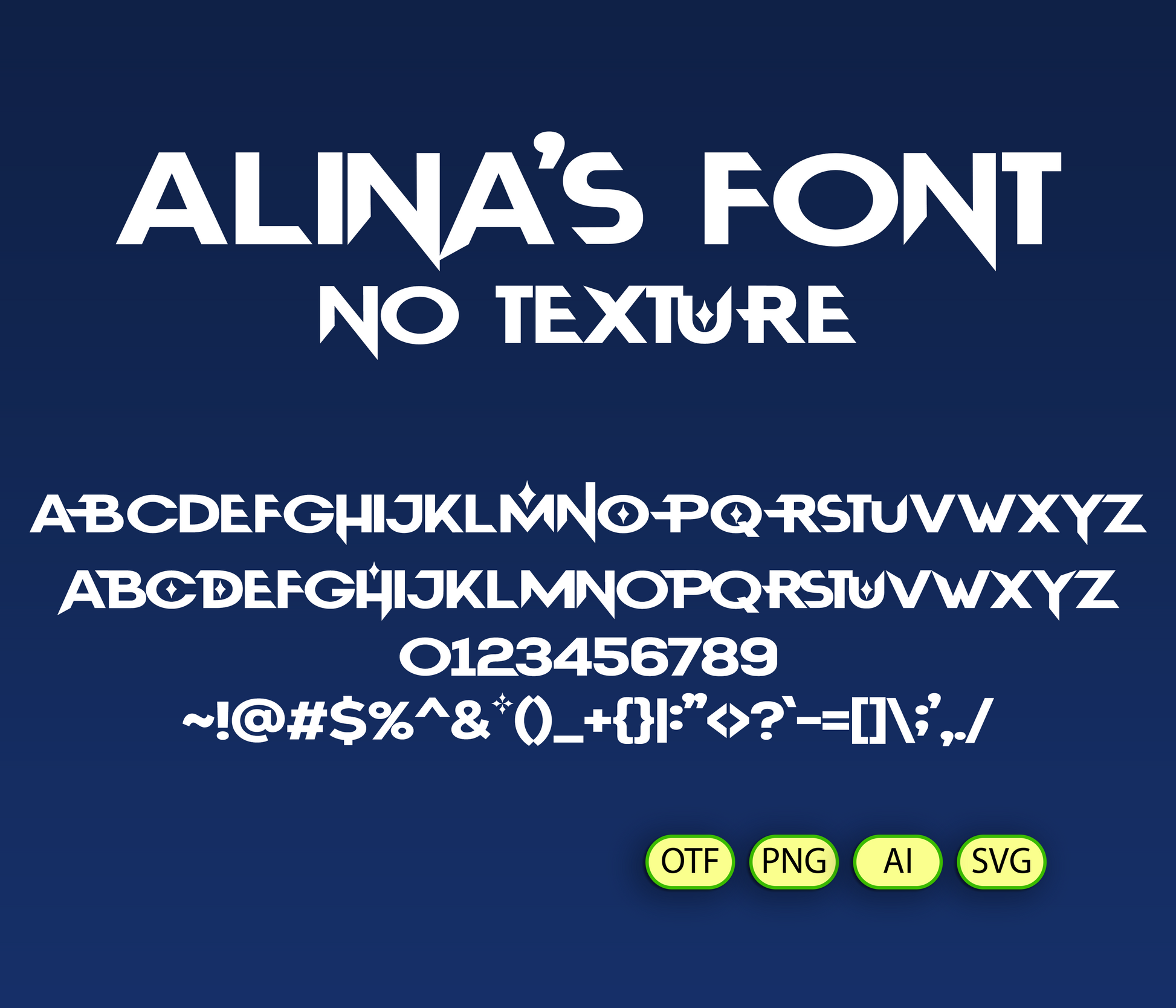
K-POP Hallyu Shadow Slayers Font Mystical Korean Beat
Step into the electrifying world of supernatural Korean entertainment with our Hallyu Shadow Slayers font, capturing the essence of Korean wave culture meets mystical combat action. Perfect for Korean music fan events, supernatural themed parties, manhwa designers, and creative professionals, this font brings the dynamic, edgy energy of Korean entertainment with a dark mystical twist to your projects. Create striking fan art, concert-themed merchandise, or digital content with the bold, rebellious spirit of idol performers battling supernatural forces.
Our Hallyu Shadow Slayers font features sharp, angular letterforms with sleek modern edges reflecting the high-energy aesthetic of Korean wave culture mixed with mystical elements. The characters blend contemporary Korean typography influences with occult undertones, creating a perfect fusion of pop culture and dark fantasy.